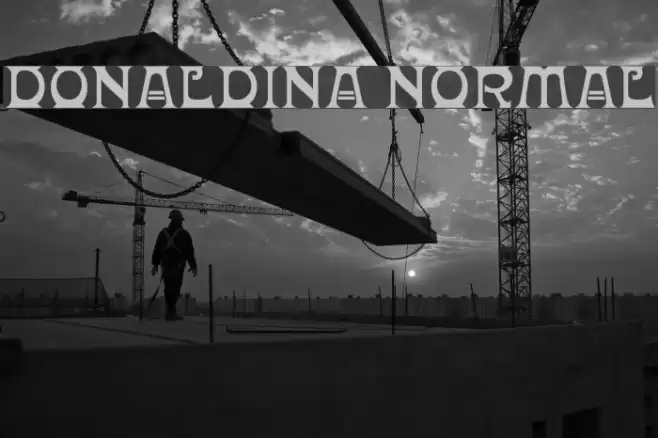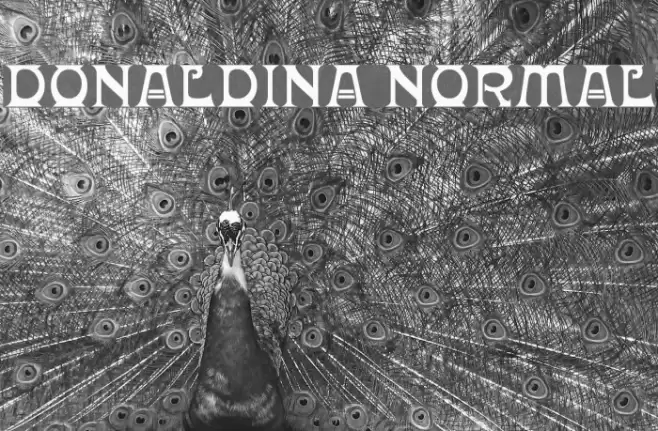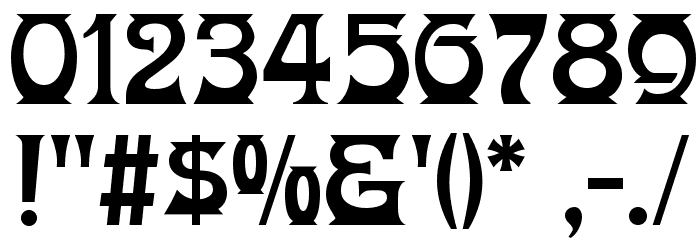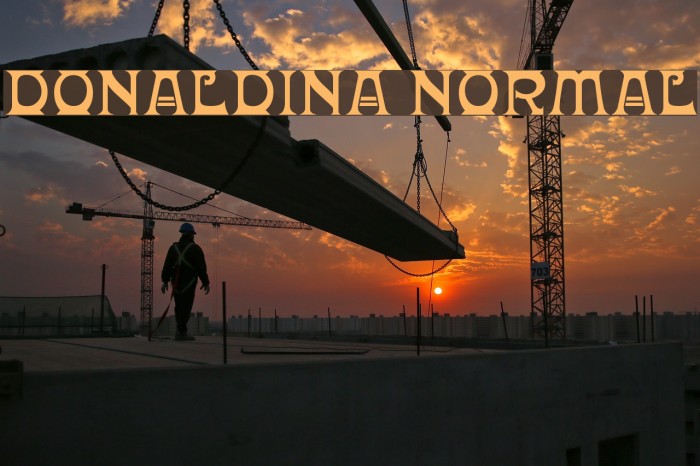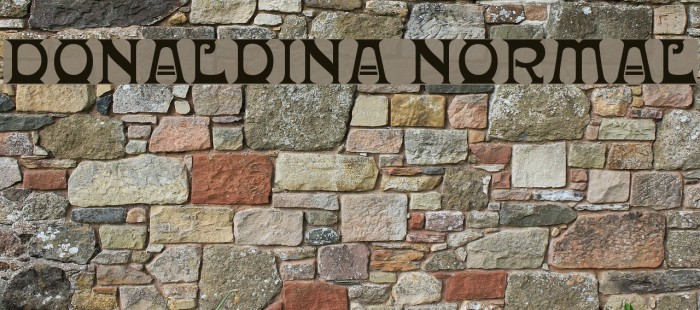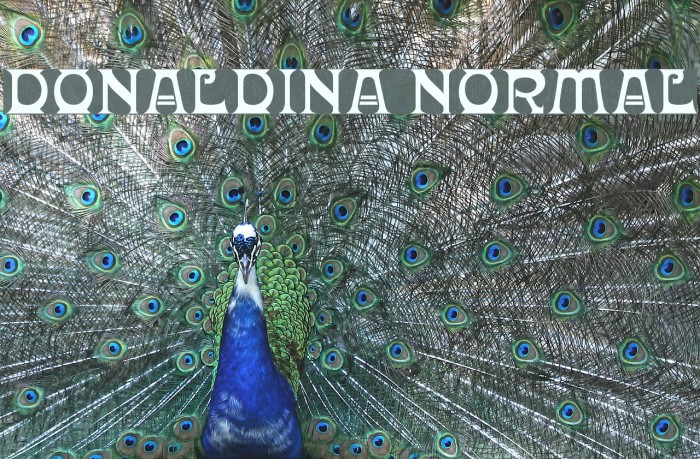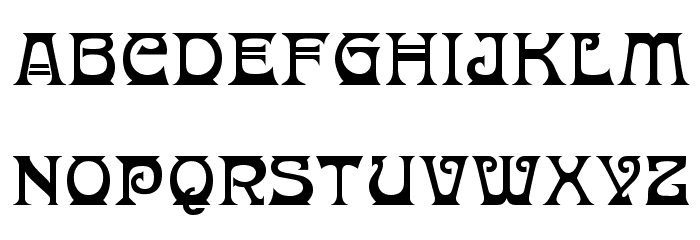
Donaldina Normal Font
Donaldina Normal Description
This font features a bold and striking design with a unique blend of sharp angles and curves, creating a dramatic and eye-catching appearance. The characters are heavily stylized, with exaggerated serifs and a strong presence, making it ideal for attention-grabbing headlines or titles. The uppercase and lowercase letters maintain a consistent style, with a slight medieval or gothic influence. The numbers and special characters are equally bold, ensuring a cohesive look across all text elements.
A bold, dramatic font with sharp angles and a gothic influence from Uncategorized fonts.
- Proposed Projects: Ideal for branding, posters, book covers, and any project requiring a bold, distinctive typeface.